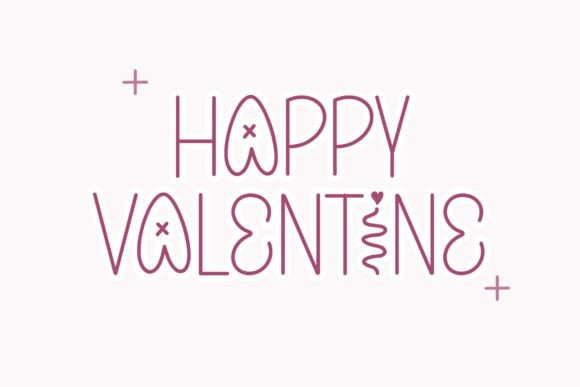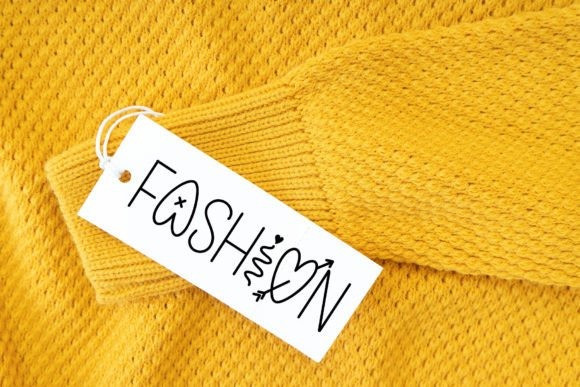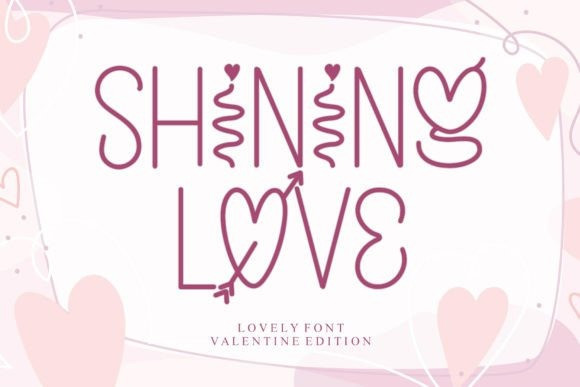
Shining Love Font
Shining Love Font – a captivating display font crafted with affection and delight. This enchanting typography is part of our special Valentine’s edition, encapsulating love and warmth in each character. Playful yet sophisticated, SHINING LOVE offers a delightful visual experience, perfect to infuse a dose of cuteness in your designs. Explore the endearing potential of SHINING LOVE and let your creativity bloom!